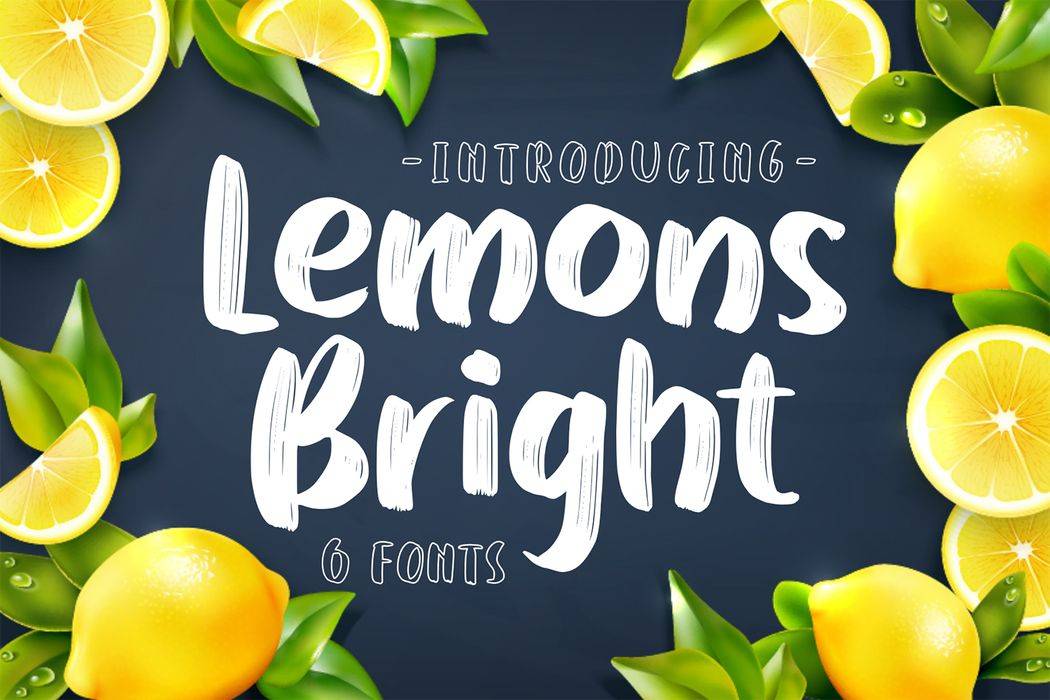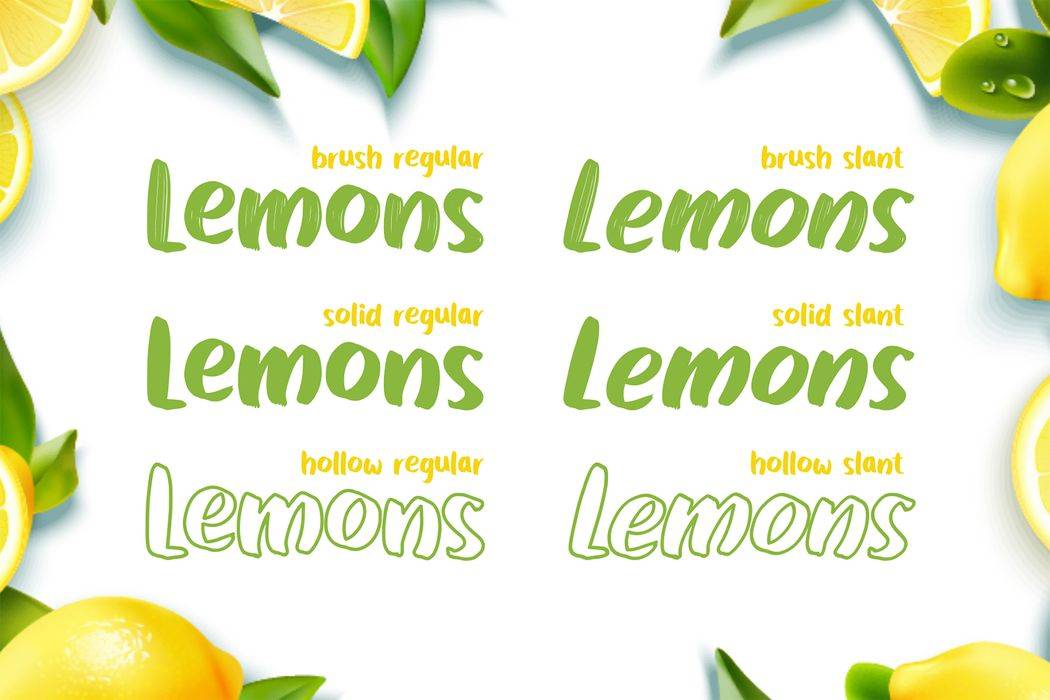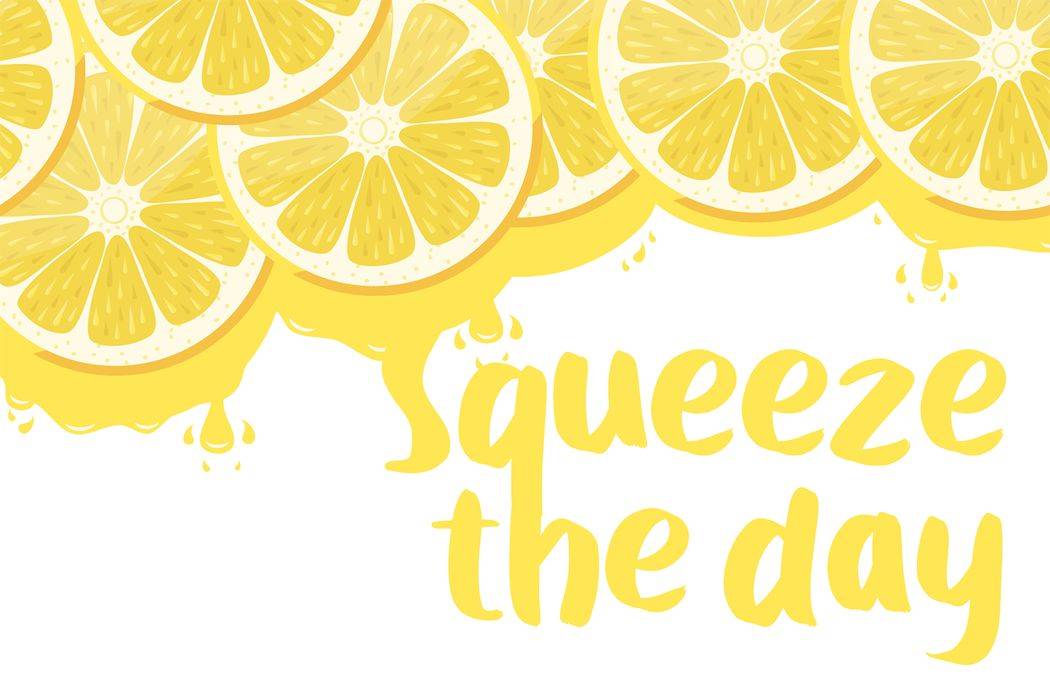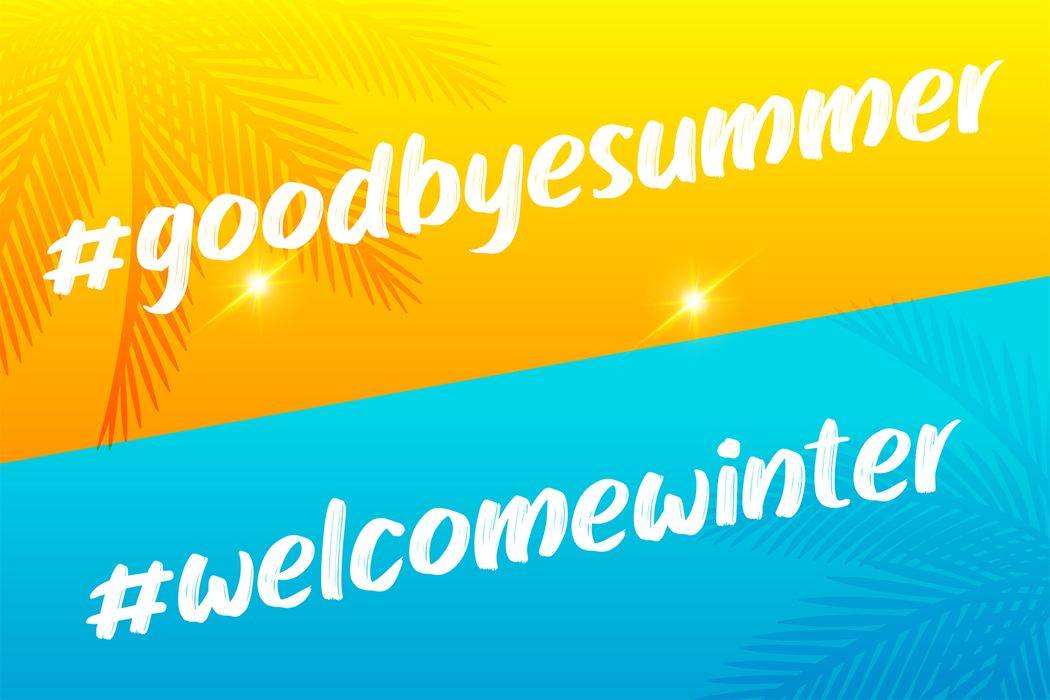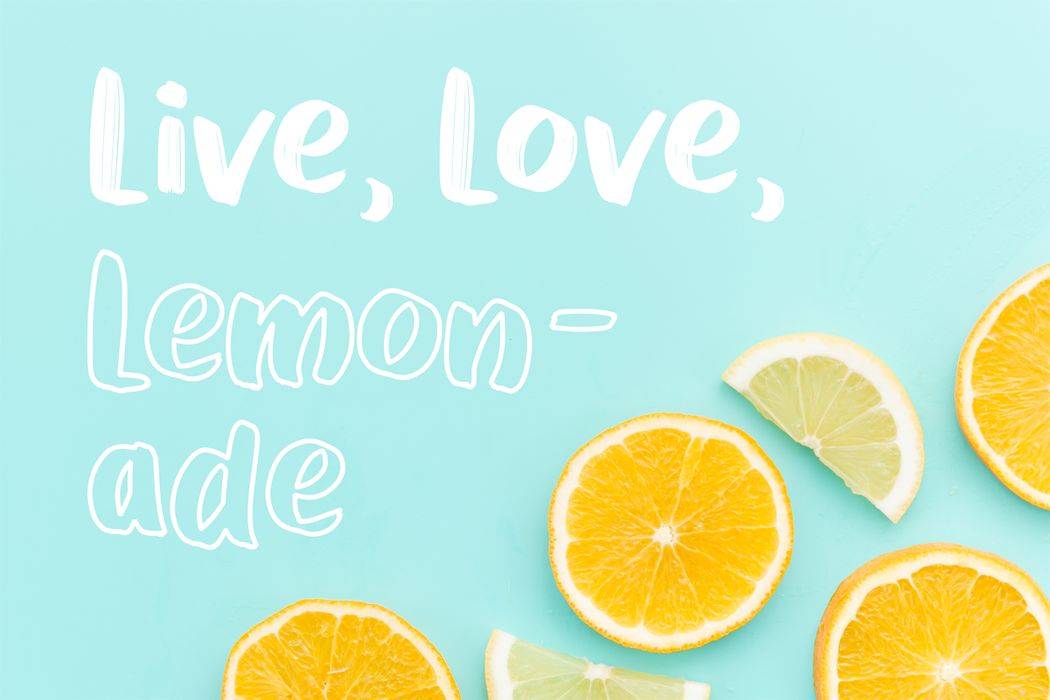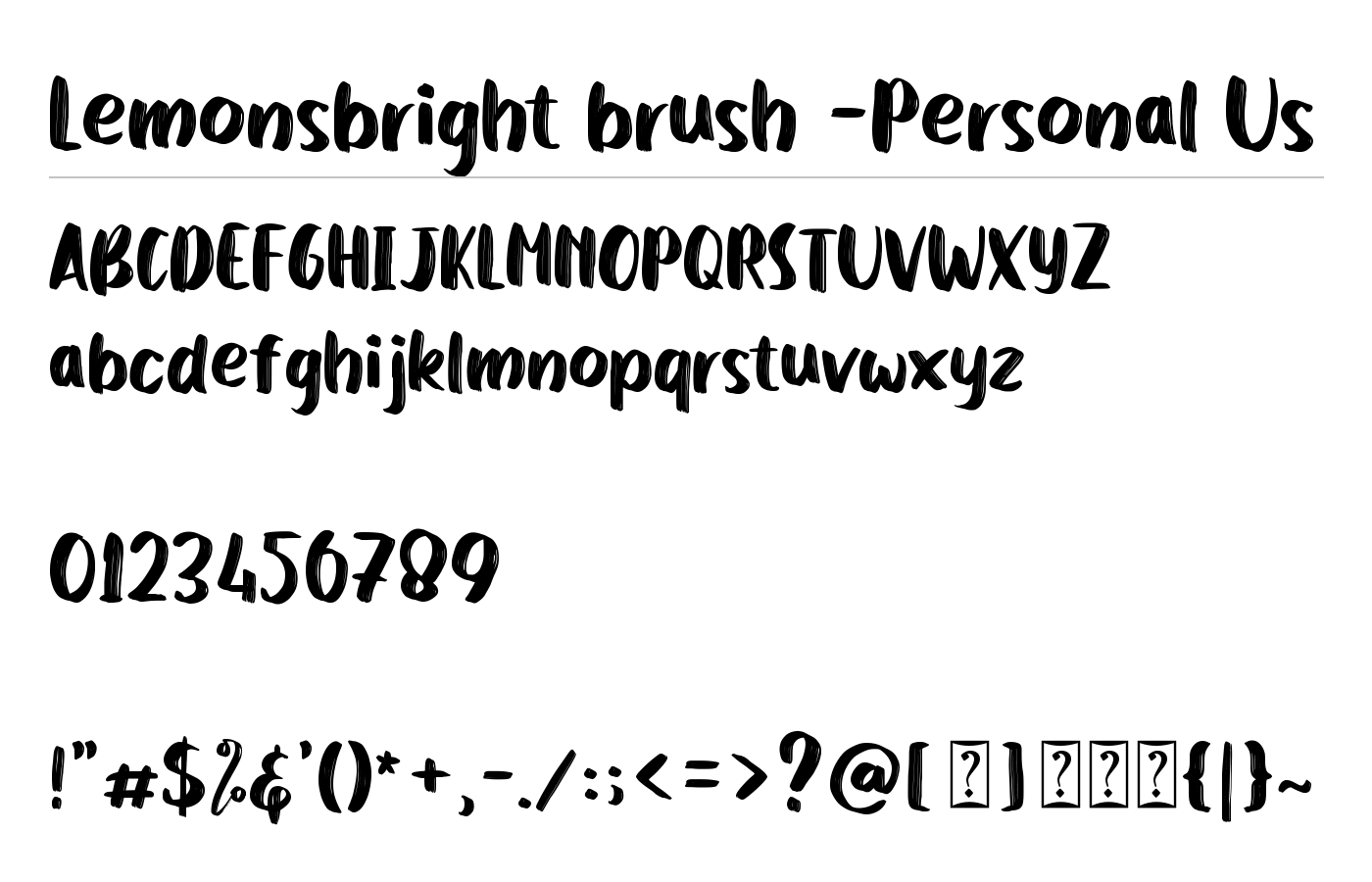
Lemons Bright is a playful, hand-brushed script font with a bold and lively character that feels personal and approachable. Its irregular strokes and casual shapes make it ideal for creating fun, informal designs such as logos, packaging, or headlines that need a creative, youthful vibe. This font works well in expressive branding and editorial projects where a friendly and energetic tone is desired.
Lemons Bright Font
About Lemons Bright Font
| Font family | Lemons Bright Font |
| Designer | Abo Daniel 2019 |